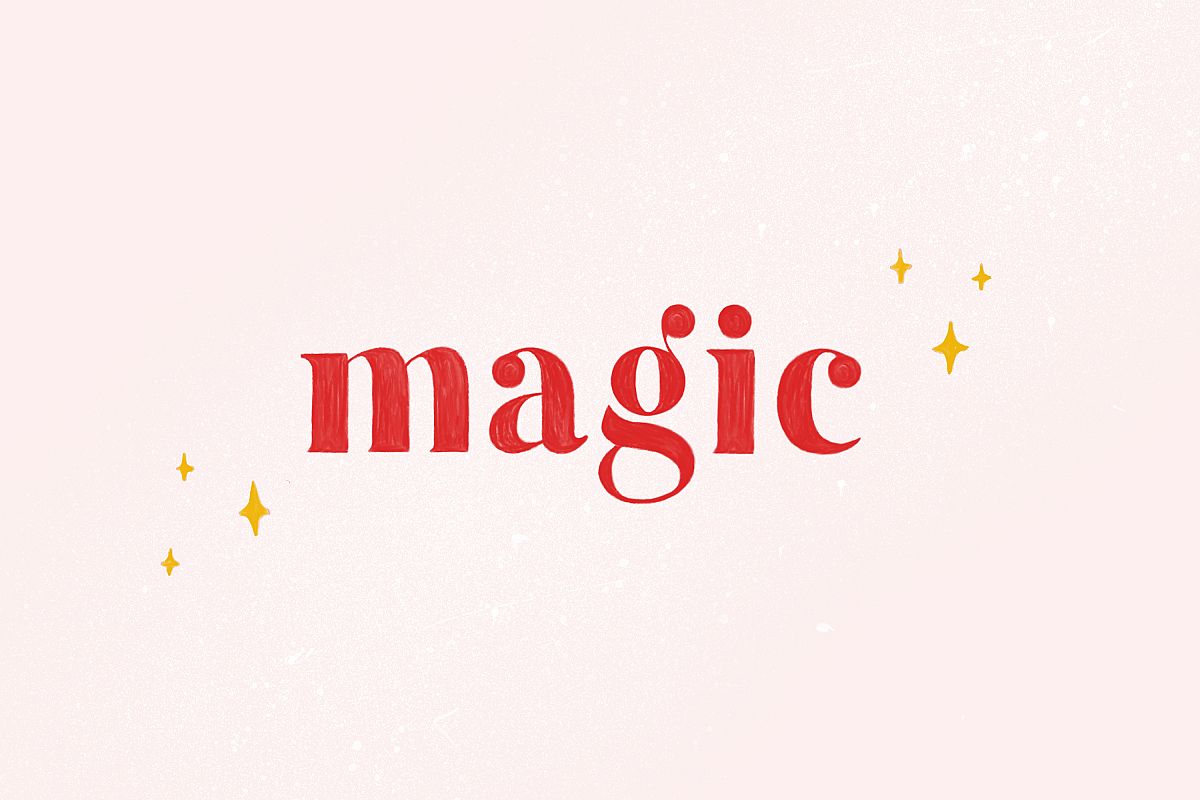
Magic - Colour SVG Font Extras
Magic - Colour SVG Font + Extra Doodles!
All the letters are raster bitmap font - each letter has been painted a dozen of times.